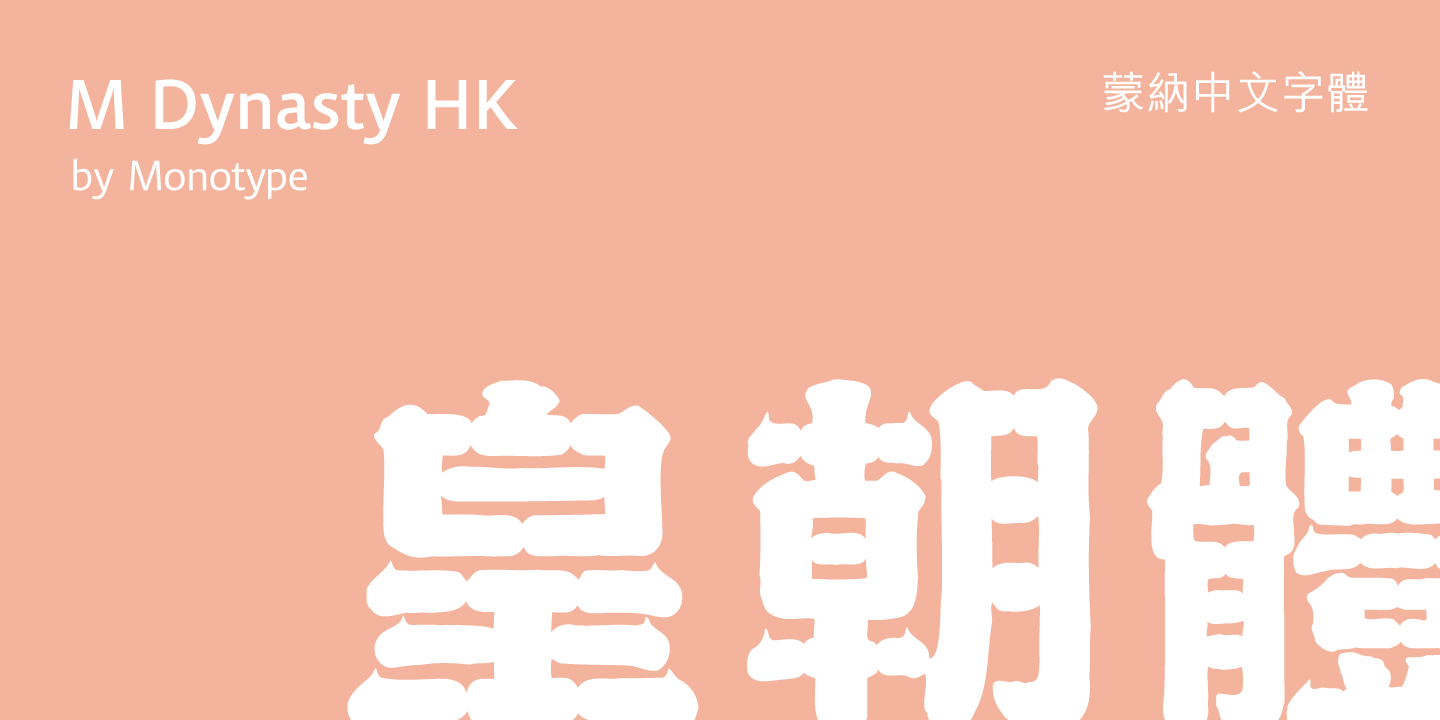
M Dynasty HK Font is perfect for Asian-inspired branding, luxury restaurants, cultural institutions, traditional crafts packaging, martial arts studios, wellness centers, and sophisticated hospitality design. This distinctive typeface brings elegance and cultural authenticity to contemporary projects.
M Dynasty HK Font is exciting because it masterfully combines traditional Asian calligraphic influences with modern typographic principles, creating letterforms that honor cultural heritage while maintaining contemporary functionality and exceptional readability.
The M Dynasty HK Font family includes multiple weights and styles that capture the essence of traditional brush lettering while providing comprehensive Latin character support. This versatile collection enables designers to create authentic cultural connections through typography.
M Dynasty HK Font Free Download offers designers access to a uniquely crafted typeface that bridges Eastern aesthetic traditions with Western typography standards. This sophisticated font features carefully designed letterforms that evoke the fluid grace of traditional Chinese calligraphy while ensuring optimal performance in modern design applications. The typeface showcases subtle stroke variations and balanced proportions that create visual harmony and cultural resonance. Its distinctive character makes it particularly suitable for brands and projects seeking to establish authentic connections with Asian markets or convey cultural sophistication. M Dynasty HK Font delivers exceptional versatility for both display and text applications where cultural authenticity and visual distinction are desired. The font's unique aesthetic and professional quality make it an essential tool for designers working on projects that require sensitive cultural representation and memorable visual impact.